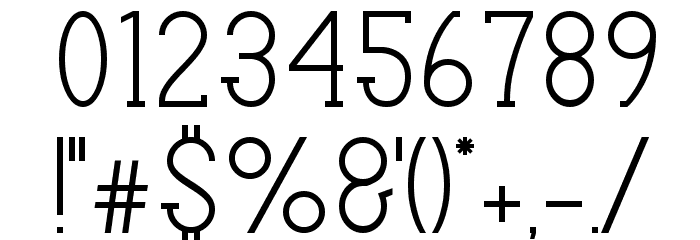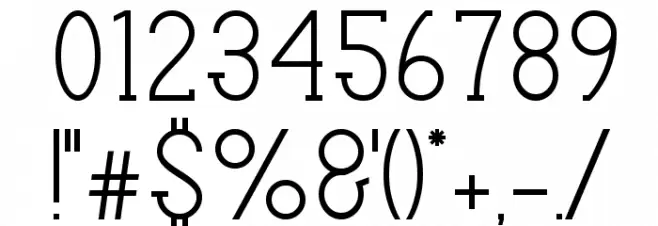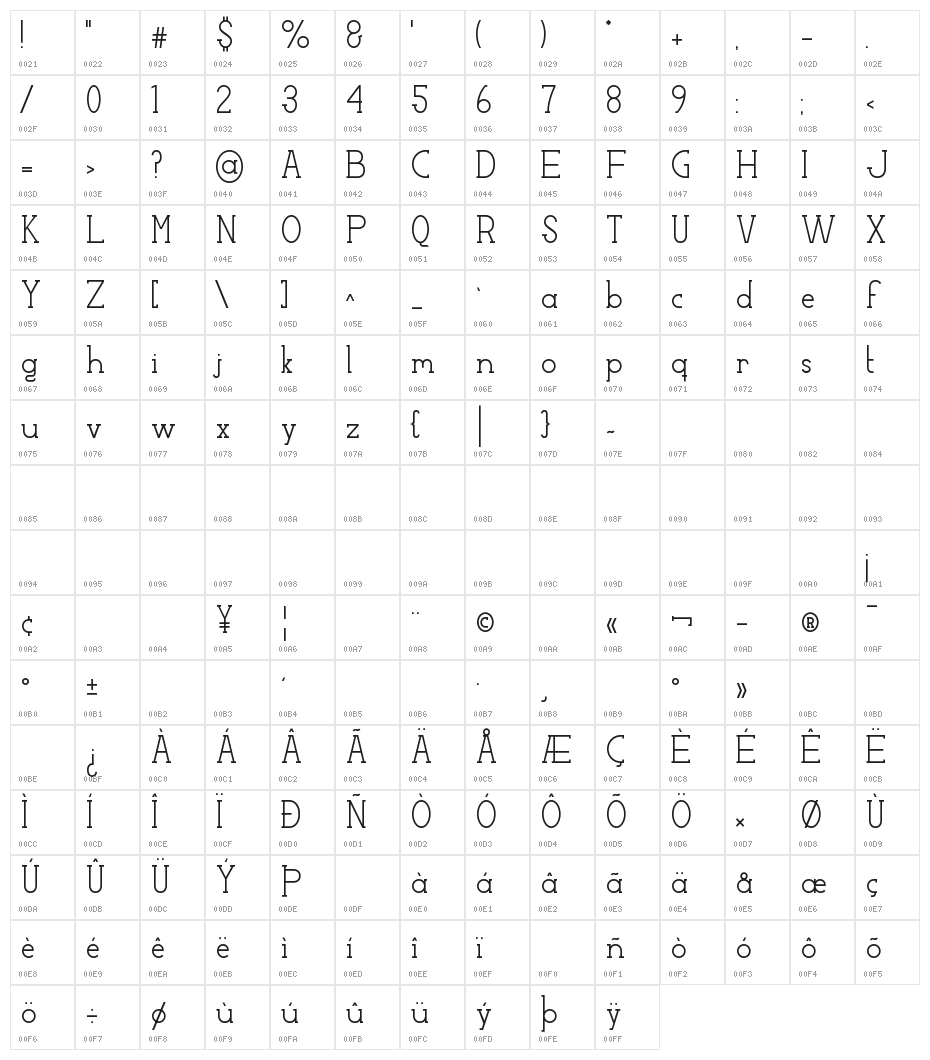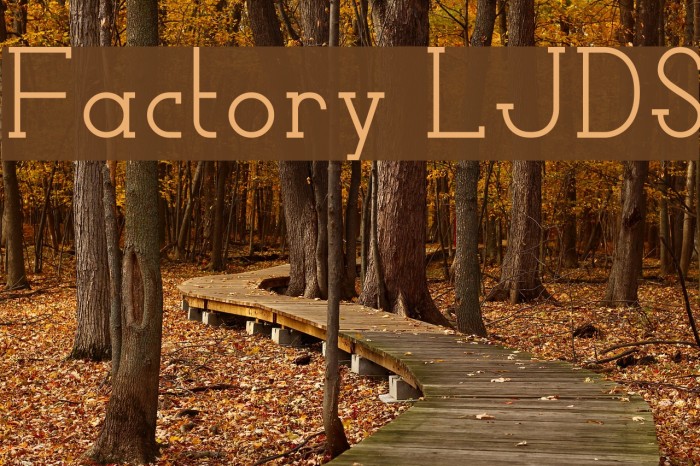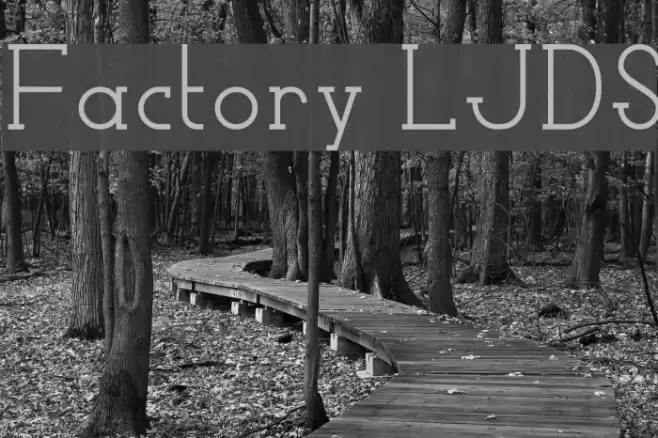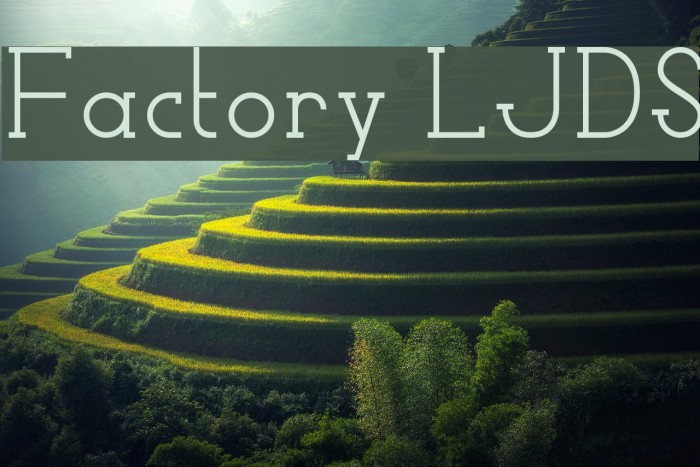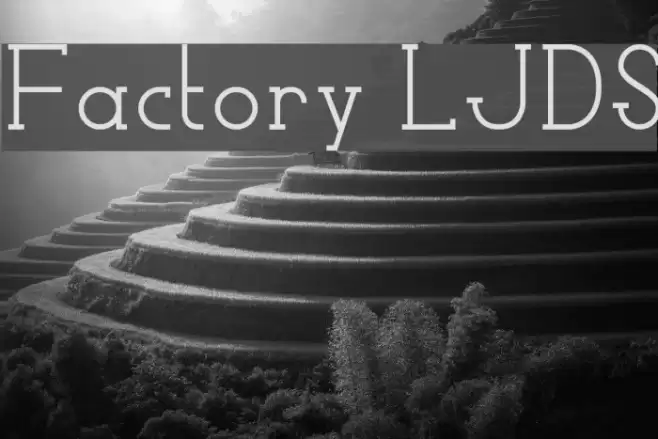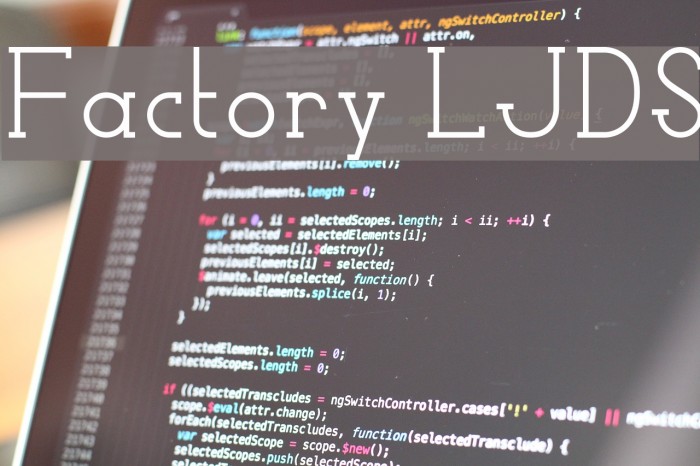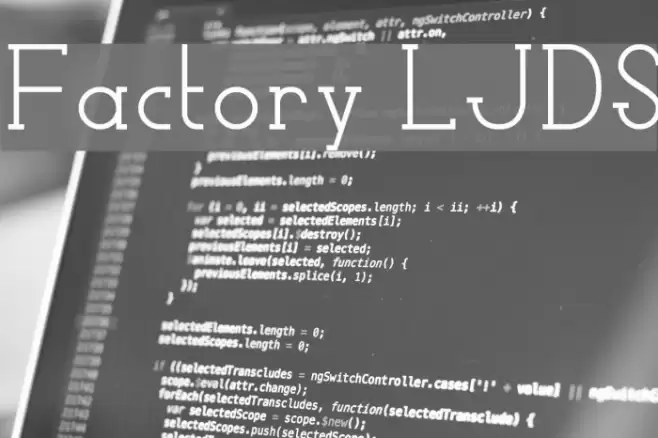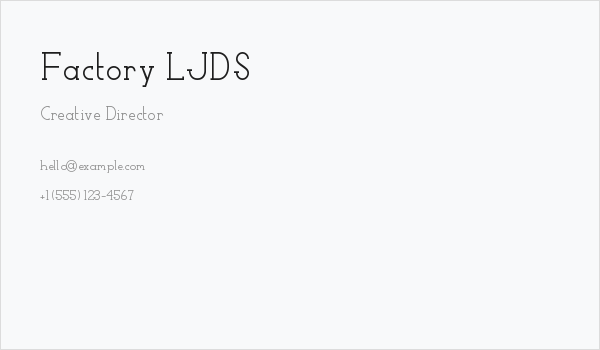
Factory LJDS Font
Factory LJDS Description
This font features a clean and modern design with a geometric structure. The uppercase letters are tall and slightly condensed, giving a sense of elegance and sophistication. The lowercase letters maintain a consistent height, contributing to a harmonious appearance. The numerals are clear and legible, with a uniform width that enhances readability. Special characters are distinct and well-defined, adding versatility to the font. The overall style is minimalistic, making it suitable for a wide range of applications.